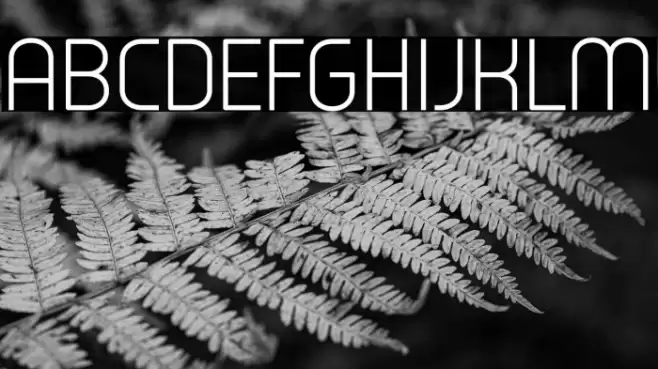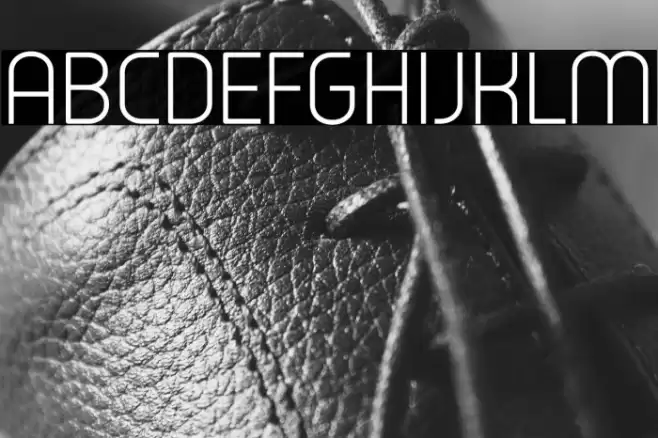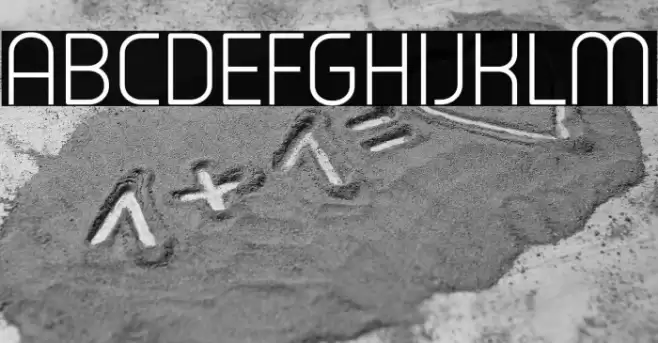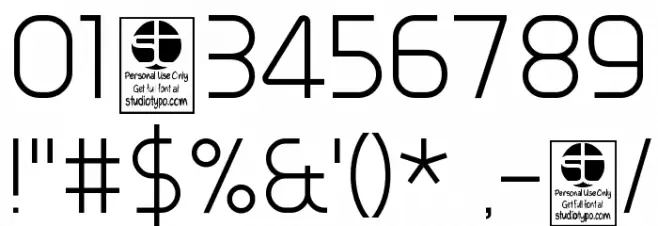
Typo Oval Light Demo Font
Typo Oval Light Demo Description
This font features a clean and modern sans-serif design with a geometric structure. The characters are evenly spaced with a consistent stroke width, giving it a sleek and contemporary appearance. The uppercase and lowercase letters maintain a uniform height, contributing to its minimalist aesthetic. The numerals and special characters are designed to complement the letterforms, ensuring readability and style consistency across all elements. This font is ideal for projects that require a modern and professional look.
A modern, geometric sans-serif font with consistent stroke width and clean lines from Uncategorized fonts.